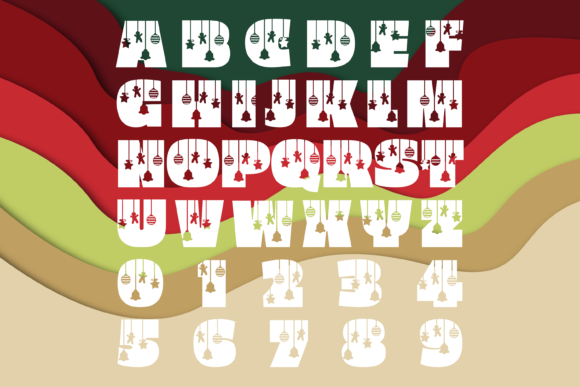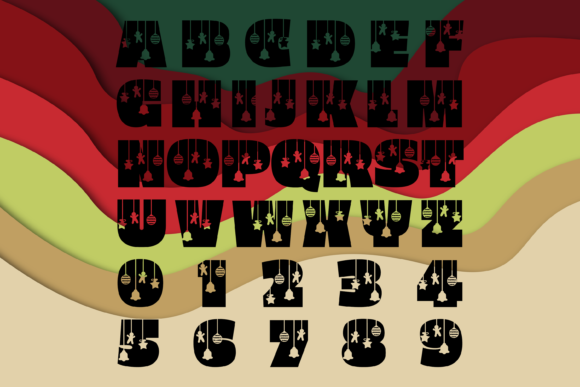
Introducing Cutemas Font: The Ultimate Festive and Cool Decorative Font
Are you a designer or crafter looking for a font that adds a touch of festivity and playfulness to your creations? Look no further than Cutemas Font! This amazing font is perfect for anyone who wants to add a lovely and whimsical touch to their designs, whether it’s for cartoon-related projects, children’s games, or any other creative endeavor.
What Makes Cutemas Font So Special?
Cutemas Font is a decorative font that stands out from the rest due to its unique and festive design. Its playful and fun appearance makes it perfect for designs that require a lighthearted and carefree touch. The font’s distinctive style is sure to grab attention and leave a lasting impression on your audience.
Perfect for Cartoon-Related Designs
If you’re working on a cartoon-related project, Cutemas Font is an excellent choice. Its fun and playful design perfectly complements cartoon characters and themes, making it ideal for:
- Cartoon-style logos and branding
- Animated videos and shorts
- Comic books and graphic novels
- Children’s book illustrations
Great for Children’s Games and Activities
Cutemas Font is also perfect for children’s games and activities, such as:
- Children’s party invitations and decorations
- Educational materials and worksheets
- Game titles and packaging
- Kids’ website and app design
More Than Just a Font: Endless Creative Possibilities
Cutemas Font is more than just a font – it’s a creative tool that can be used in a variety of ways. Here are some ideas to get you started:
- Use it for DIY craft projects, such as handmade cards and gift tags
- Create custom stationery and journal pages
- Add a personal touch to your social media graphics and posts
- Design eye-catching posters and flyers
Key Features of Cutemas Font
Here are some key features that make Cutemas Font stand out:
- Festive and playful design
- Unique and decorative style
- Perfect for cartoon-related designs and children’s games
- Easy to read and use
Tips for Using Cutemas Font
Here are some tips for getting the most out of Cutemas Font:
- Pair it with other fonts for a unique and creative look
- Use it consistently across your design to create a cohesive look
In conclusion, Cutemas Font is an amazing choice for designers and crafters looking to add a festive and playful touch to their creations. Its unique and decorative design makes it perfect for cartoon-related designs, children’s games, and any other project that requires a lovely and whimsical touch. With its endless creative possibilities and easy-to-use features, Cutemas Font is sure to become a favorite in your design toolkit.